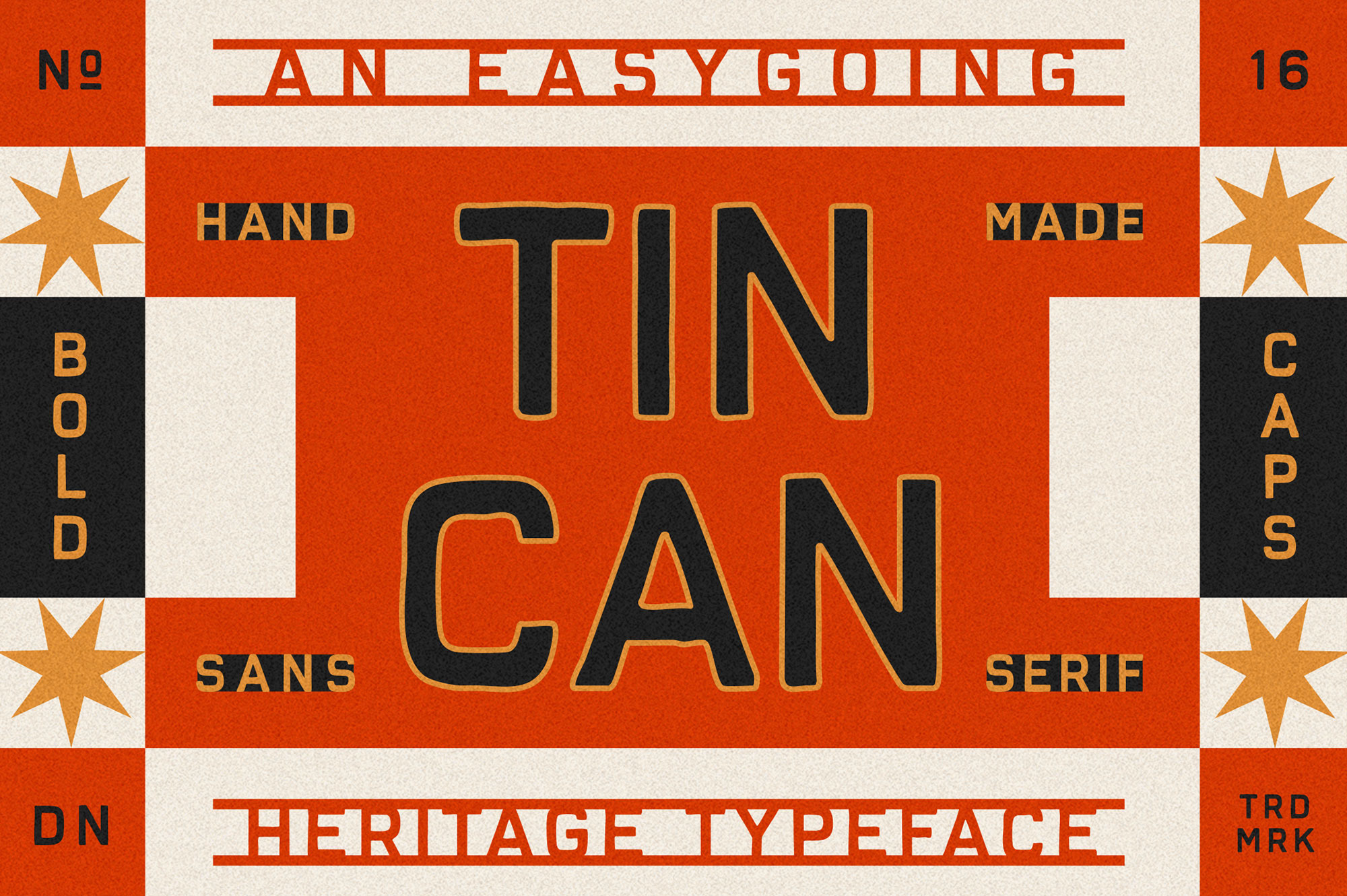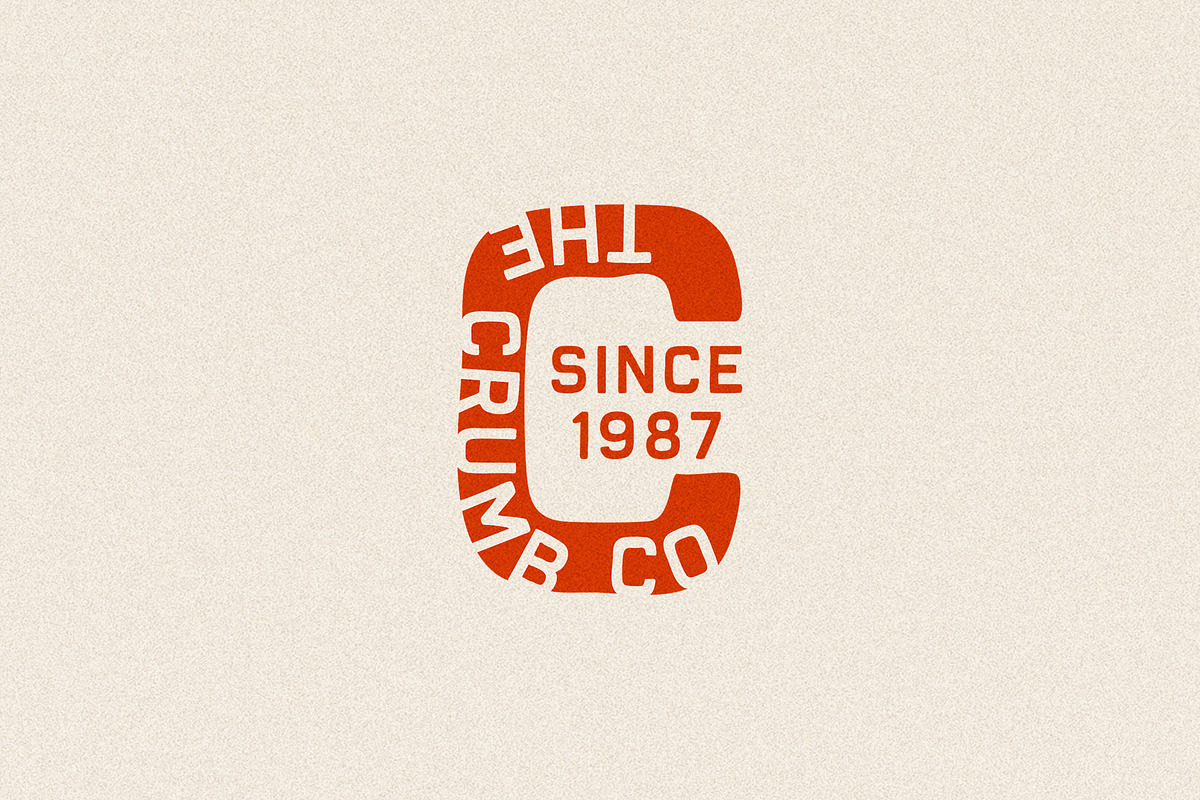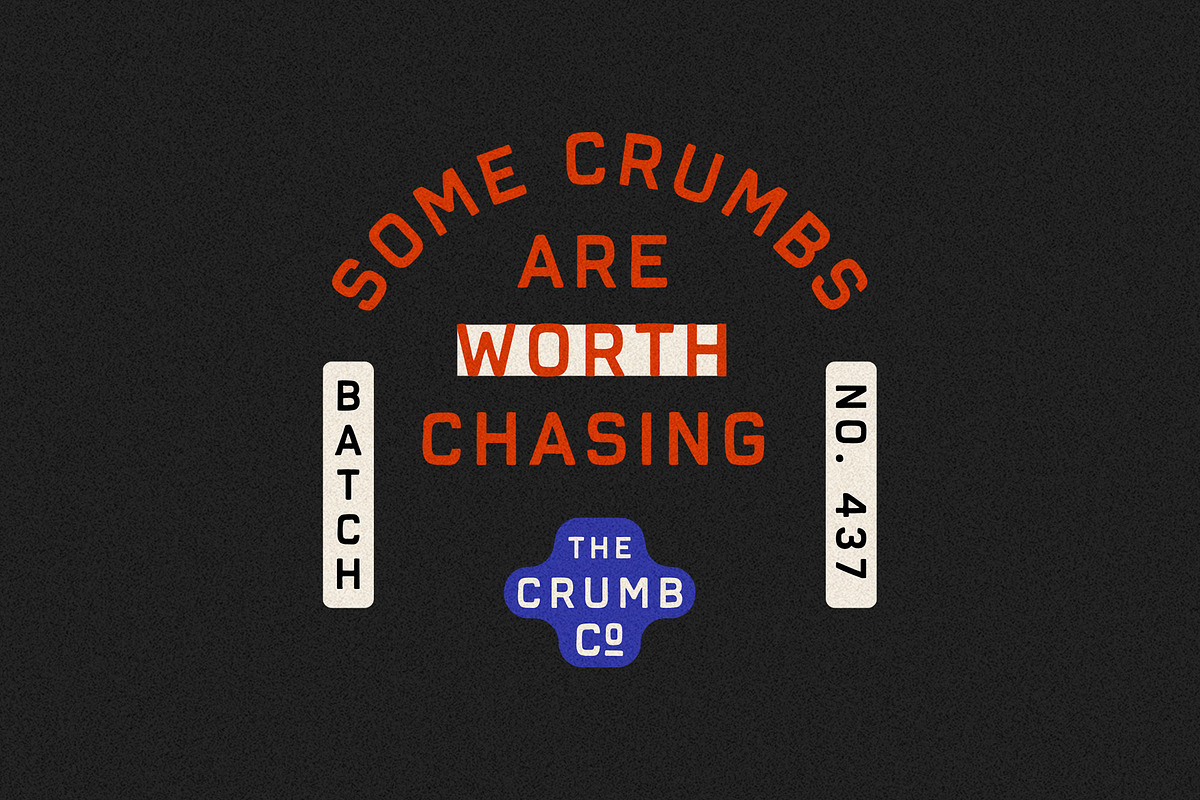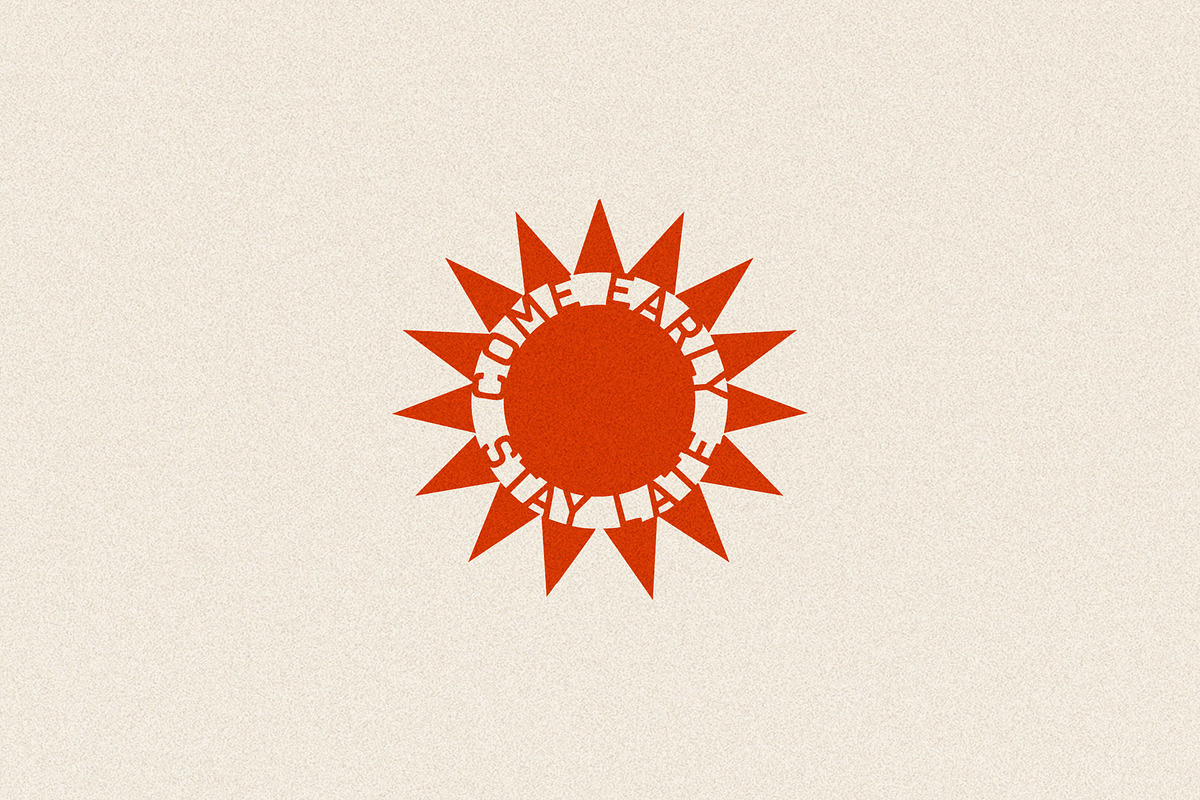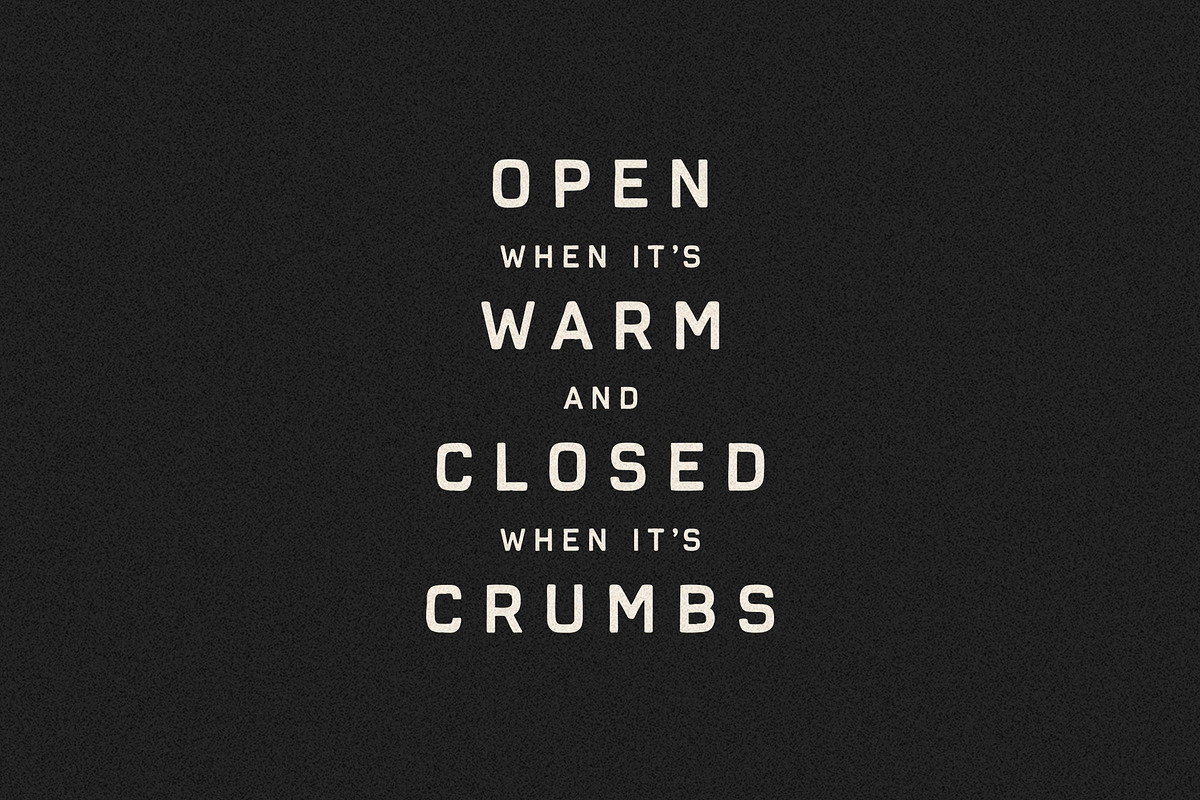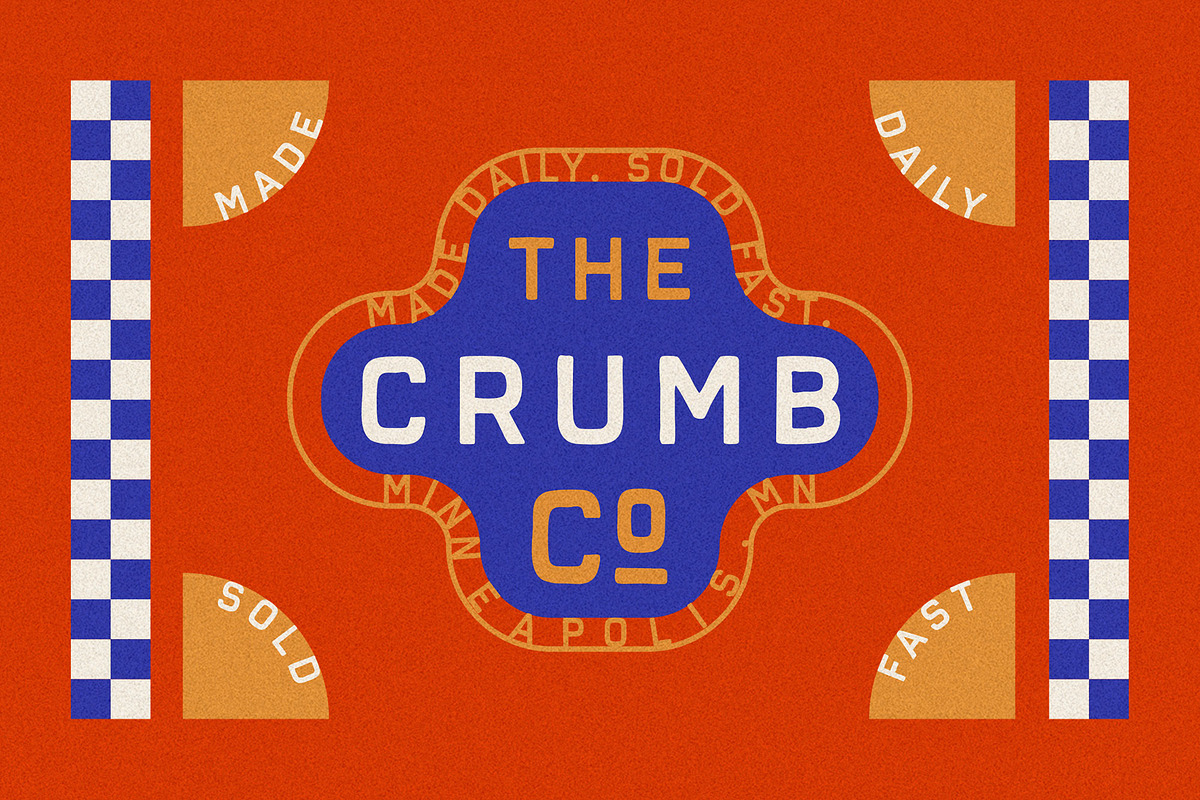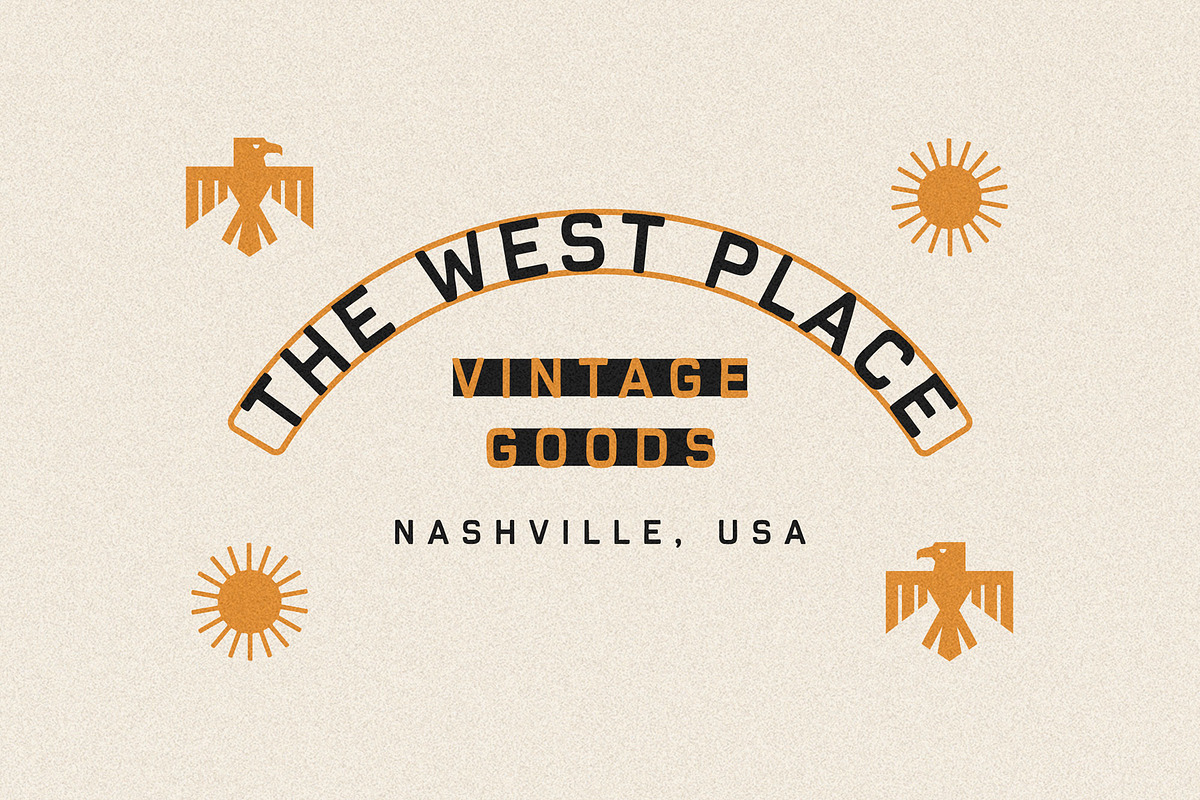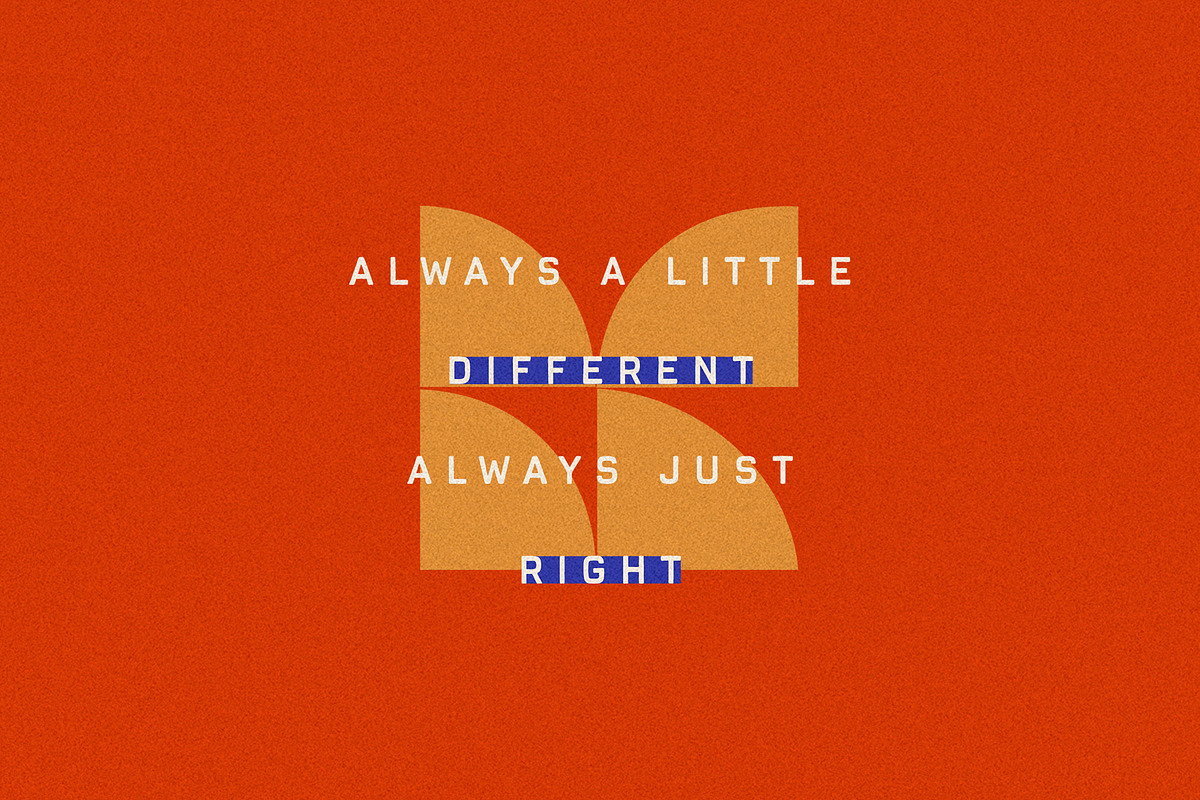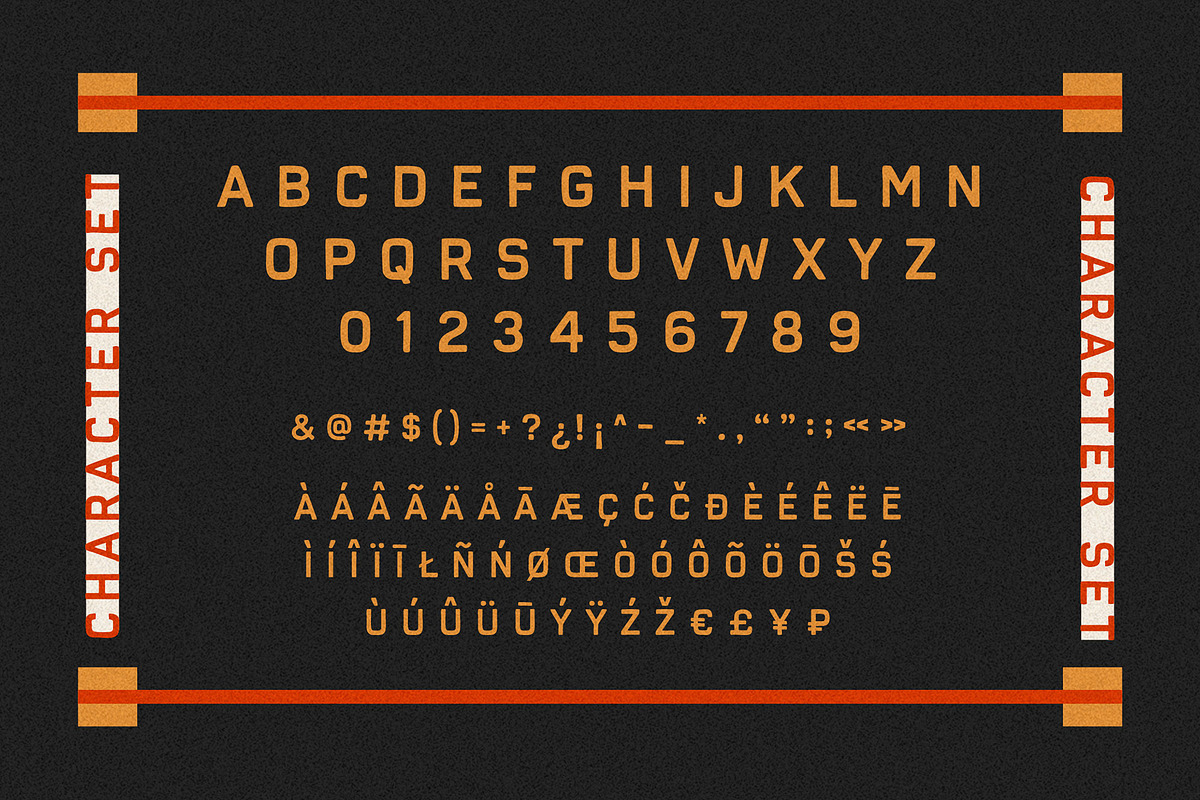
Tin Can | Heritage Typeface
Say hello to Tin Can — a bold, easygoing sans serif with a vintage utility edge. Inspired by mid-century packaging and stencil signage, Tin Can mixes charm and grit into an all-caps headline typeface that gets the job done. It’s got just enough character to feel warm, just enough geometry to stay clean, and just enough boldness to make itself heard.
Contains upper-case A-Z, numbers 0-9 and basic punctuation. This font fully supports around 70 languages.